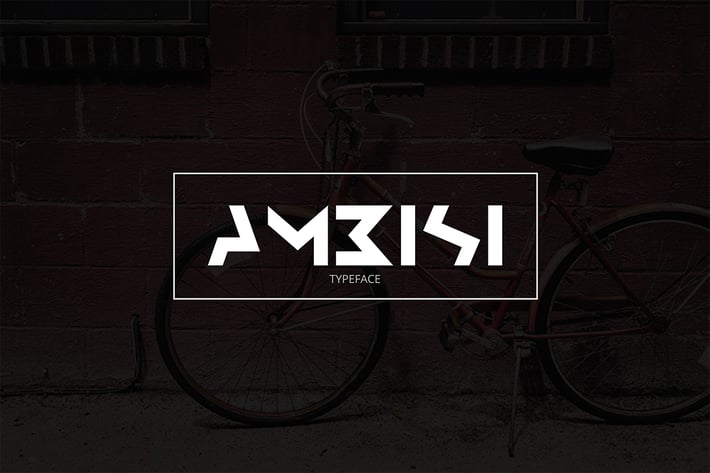
Ambisi Typeface Font
Difficult to find an appropriate font you want, especially in matters of design stuff. Then this font will answer all your wishes. You can use this for commercial work, like logo, banner, t-shirt, and other design what you need.